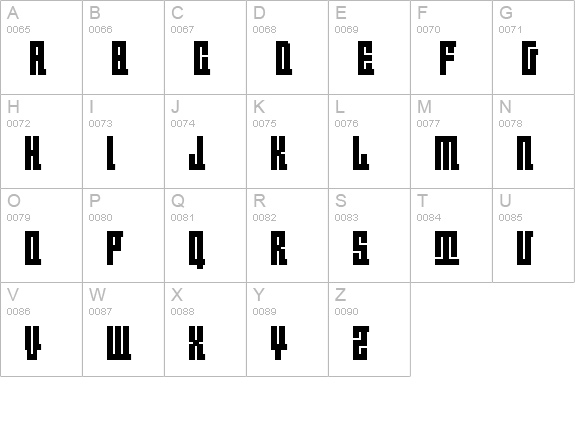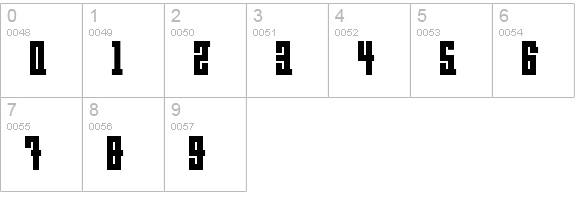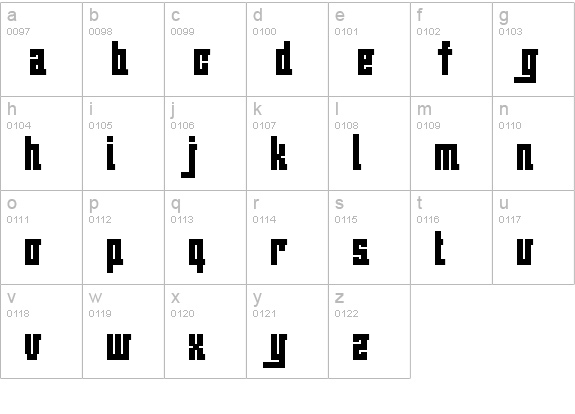
BeijingWigoWhat_normal font is a sleek and modern typeface that exudes elegance and sophistication. With its clean lines and stylish design, this font is perfect for creating eye-catching designs for various projects. Whether you are working on a website, branding, or print materials, BeijingWigoWhat_normal font will add a touch of class to your work. The best part? BeijingWigoWhat_normal font is completely free to download at FontsMarket.com. Simply head over to the website and get your hands on this gorgeous font without spending a dime. Don't miss out on the opportunity to elevate your designs with BeijingWigoWhat_normal font - download it today and see the difference it can make!